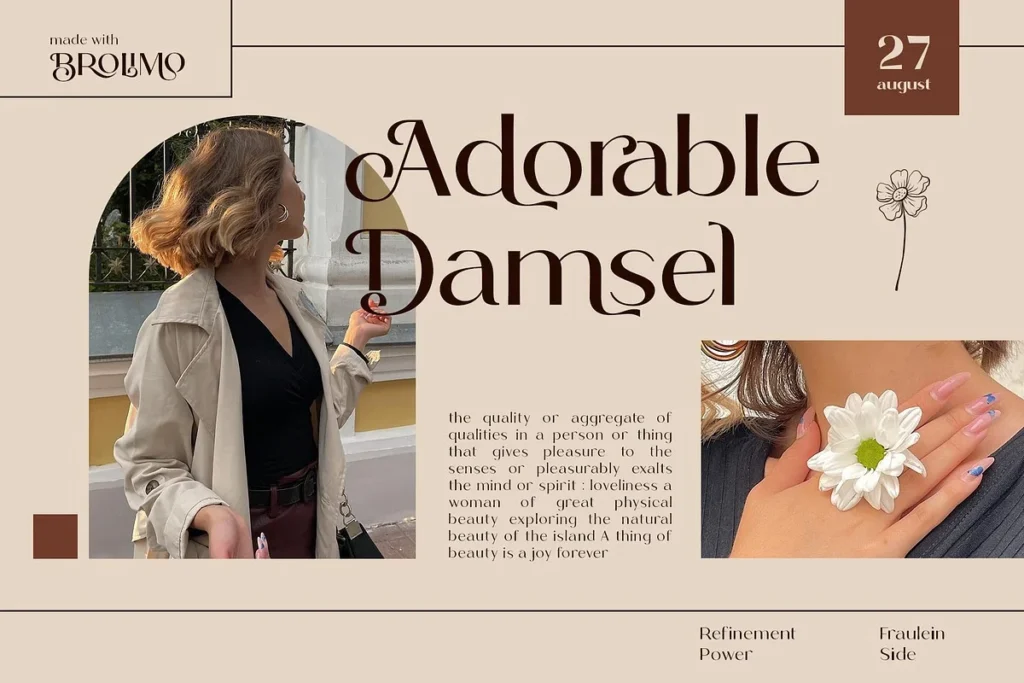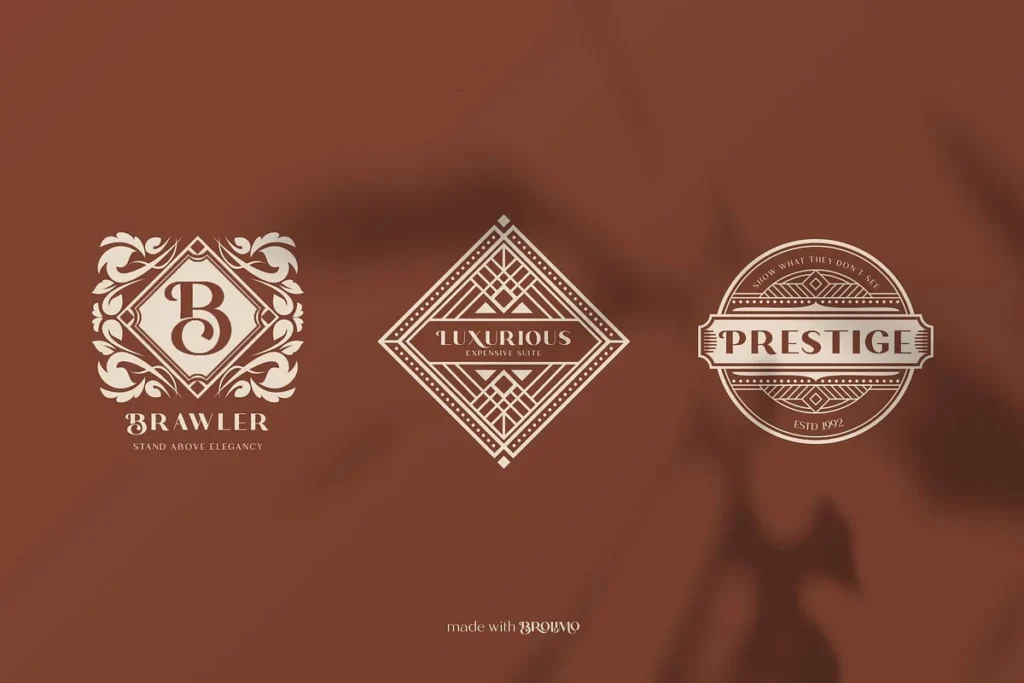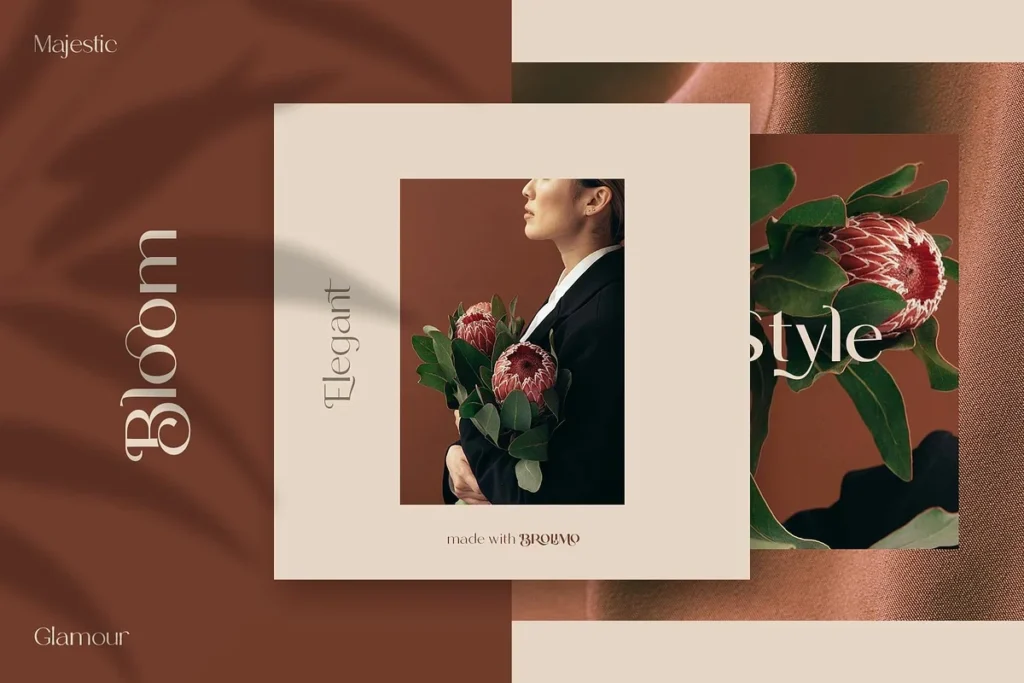
Brolimo Typeface Font consists of 14 families, from thin to heavy style. The elegant modern font creates a unique design and is sure to steal the eye of the design target audience.
The BROLIMO font is not only one of a kind, but it also has a luxury, straightforward character that makes the design charming and luxurious. These fonts are perfect for designs with the concepts of elegant, luxury, romance, fashion, and so on.
Brolimo Typeface Font imagination with our best-selling fonts, each exuding a modern, clean, and stylish charm. With unique alternates, a variety of stylistic features, and ligatures that give your designs a touch of exclusivity, you can explore a world of possibilities.